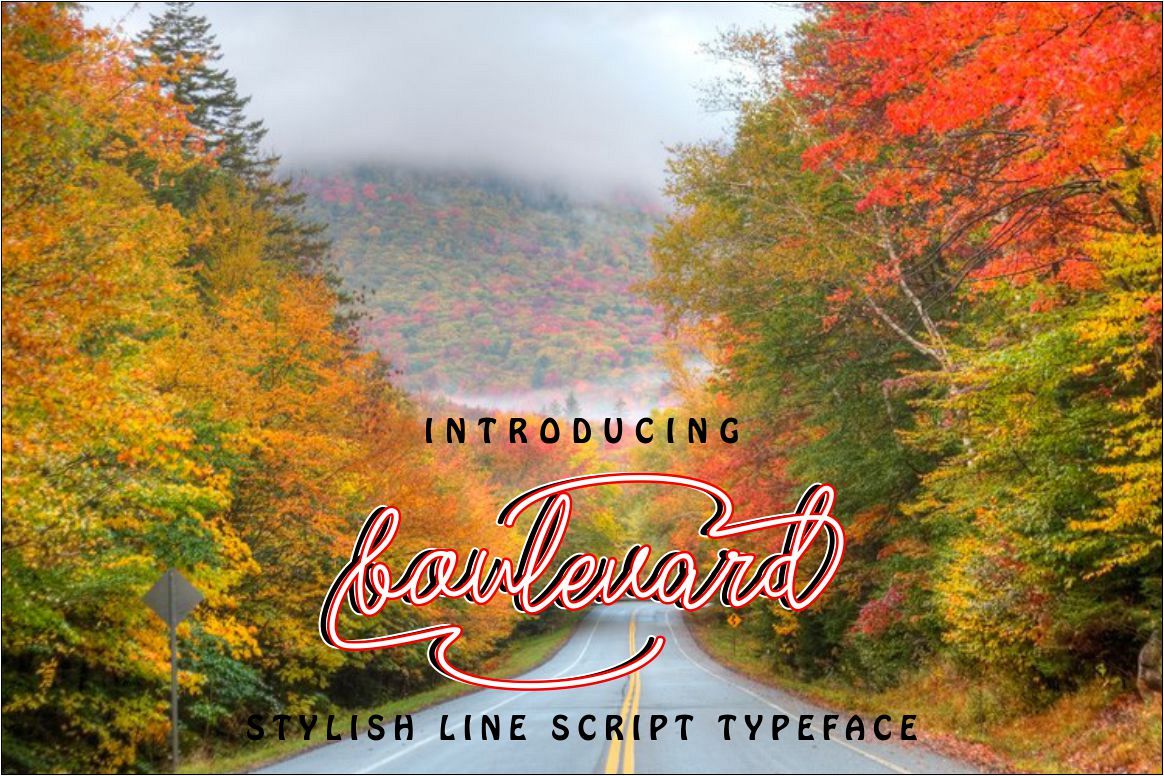
Boulevard
Boulevard This script is perfect for wedding cards, prints, invitations and ornaments. beautiful for logotype, header website, fashion design, design and more. Boulevard comes with beautiful style and ligature, alternating and rubbing. as well as multilingual support.